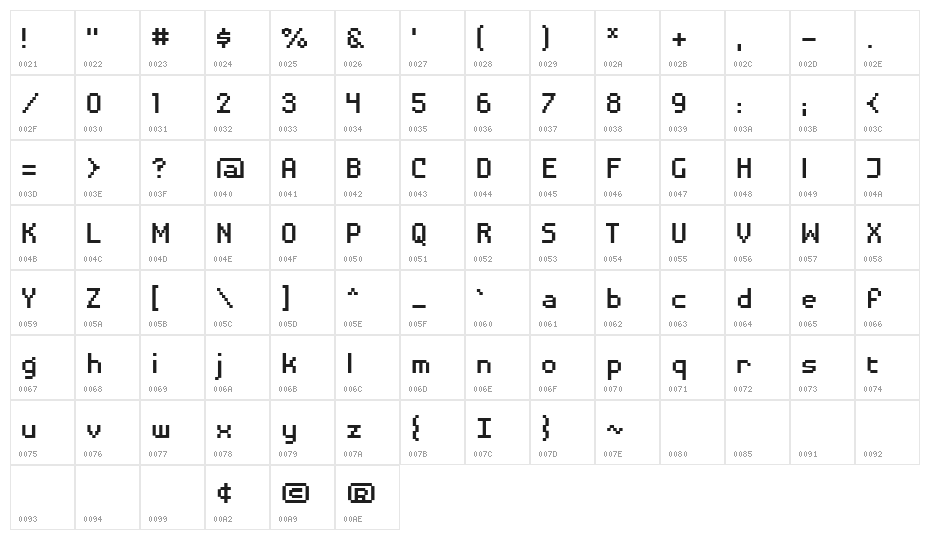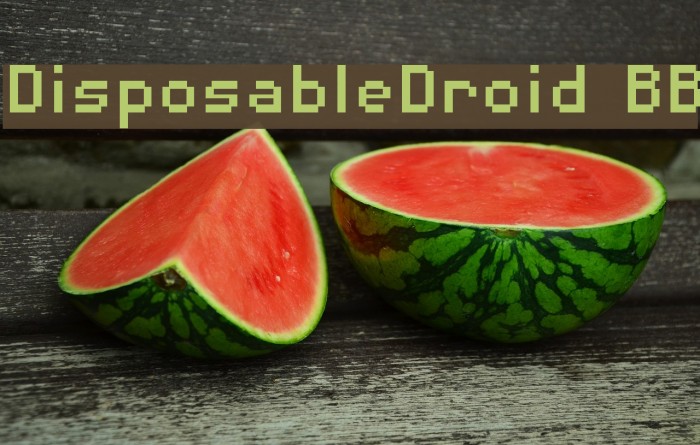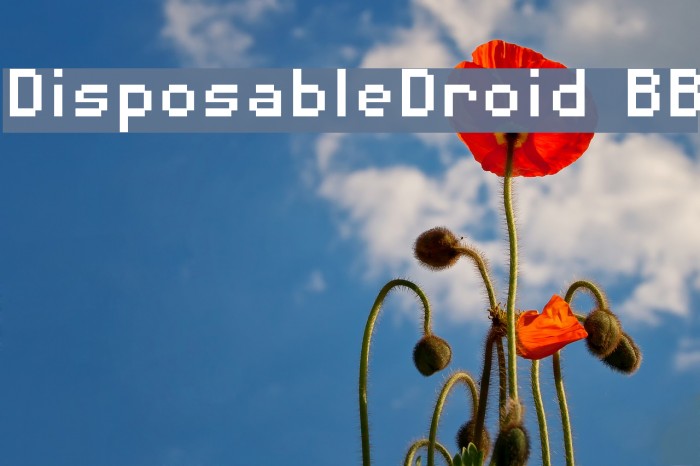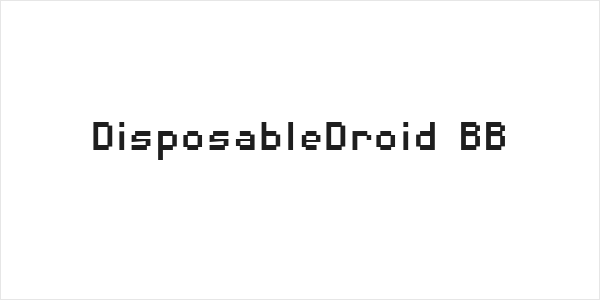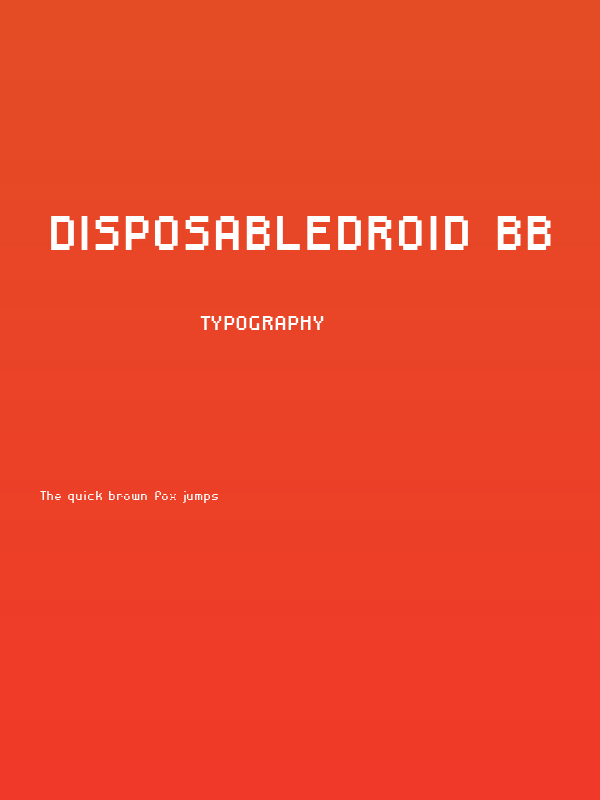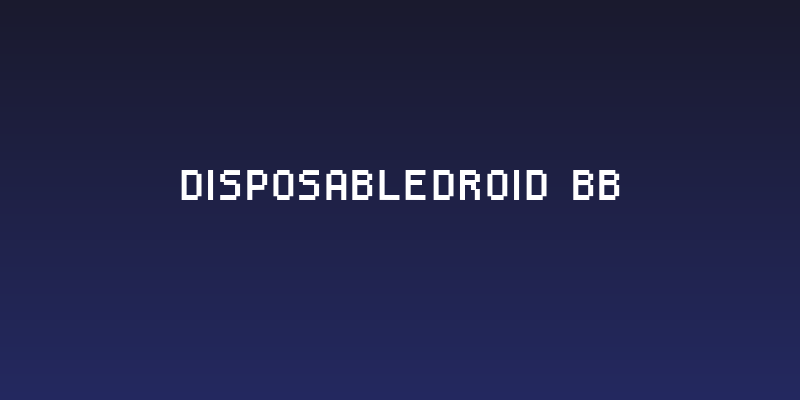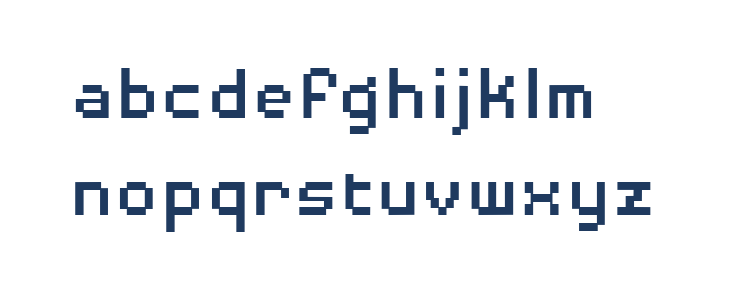
DisposableDroid BB Font
DisposableDroid BB Description
This font features a distinct pixelated design, reminiscent of early digital displays and retro video games. Each character is composed of square blocks, giving it a rigid, geometric appearance. The uppercase and lowercase letters maintain a consistent height, with the lowercase slightly smaller but still bold and prominent. Numbers and special characters follow the same pixelated style, ensuring uniformity across all glyphs. The font's simplicity and blocky nature make it ideal for projects that aim to evoke nostalgia or a digital, tech-inspired aesthetic.
| Overall Style | Retro, Digital |
| Use Case | Headlines, Logos, Digital Art |
| Proposed Projects | Ideal for video game graphics, retro-themed designs, digital art projects, and tech-inspired branding. |